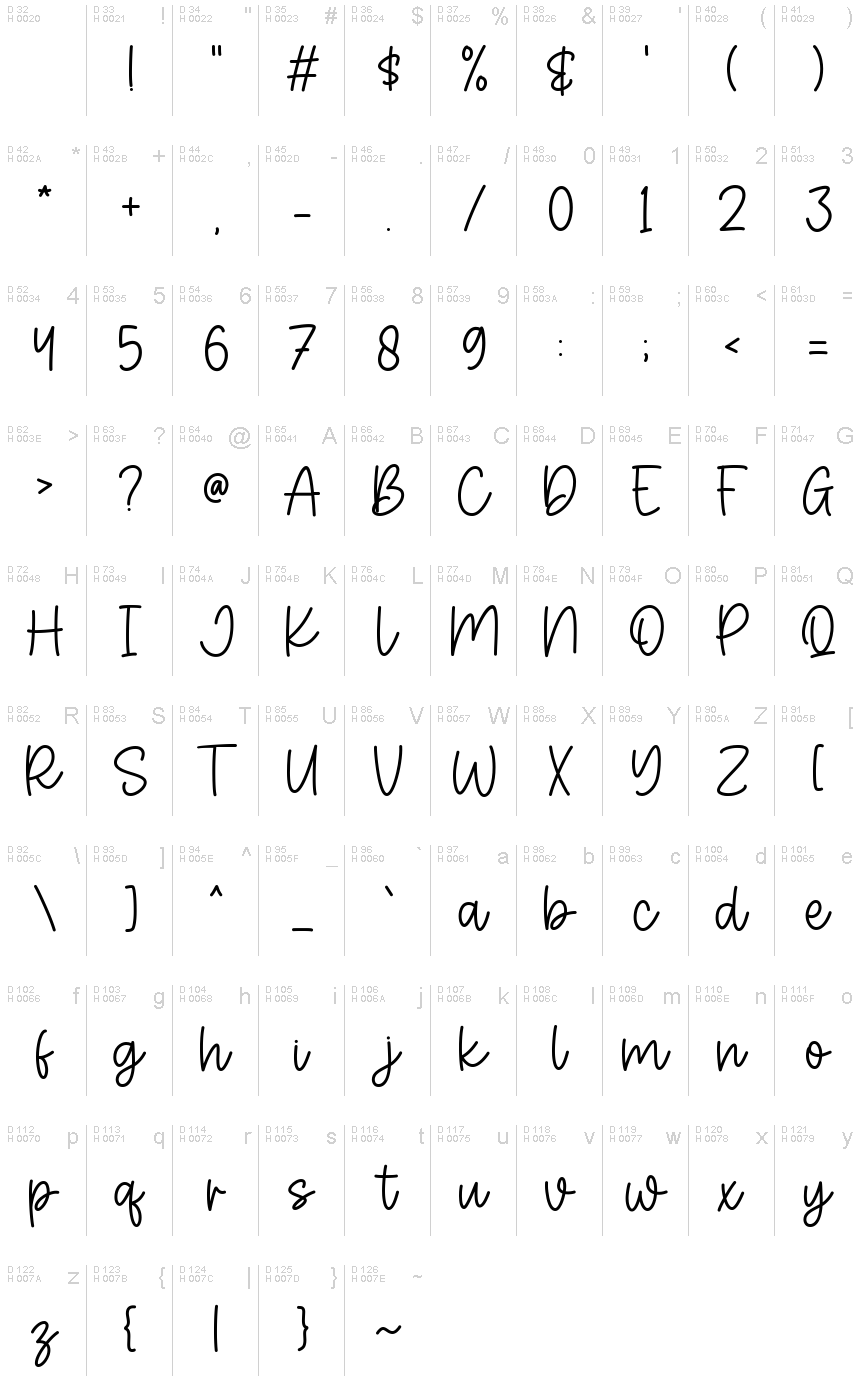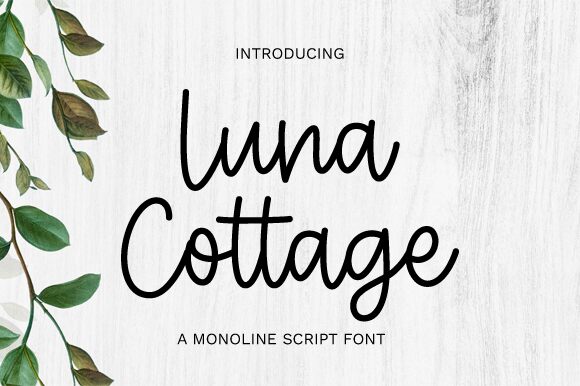
Luna Cottage
Luna Cottage font by Graphix Line Studio is a crisp handwritten free font with smooth connections. Its casual flowing finish resembles cursive handwriting created with calm and collected strokes. The font sets new standards for elegance, stylish simplicity, and modernity.
Small business owners will find this versatile cursive typeface a good fit for many of their branding projects. Spices, oven-roasted coffee packages, handmade gift cards or tags, scented candles, and soap packaging are excellent places where Luna Cottage can create some magic.